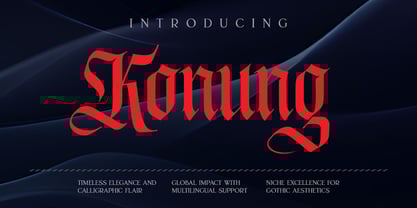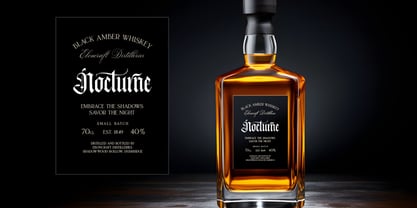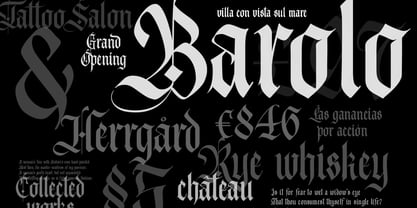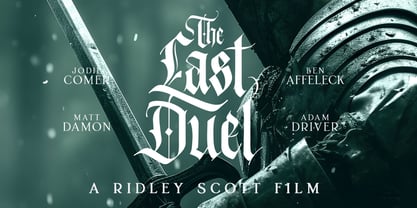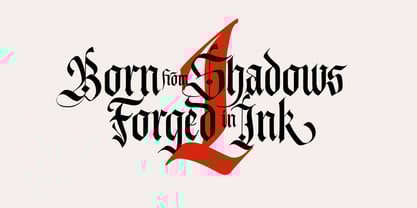
Konung Gothic
The Konung Gothic Font Family was designed by Aleksey Ivanov and published by vatesdesign. Konung Gothic contains 1 styles. More about this family
Immerse yourself in the captivating world of our gothic-inspired font, that seamlessly marries tradition and modernity. With meticulous attention to detail, this font exudes timeless elegance, boasting intricate curves that cast a spell of mystery and sophistication. Beyond its dark allure, this font offers versatility. Featuring multilingual support, a variety of alternates, and some nice ligatures, it empowers you to infuse your designs with a unique touch. Ideal for tattoos that echo ancient wisdom or modern rock band covers that pulse with energy, this font channels both the enigmatic and the bold, making it an essential tool for the contemporary creator seeking a touch of the extraordinary